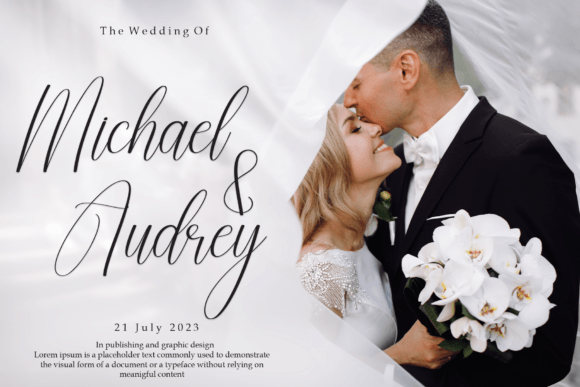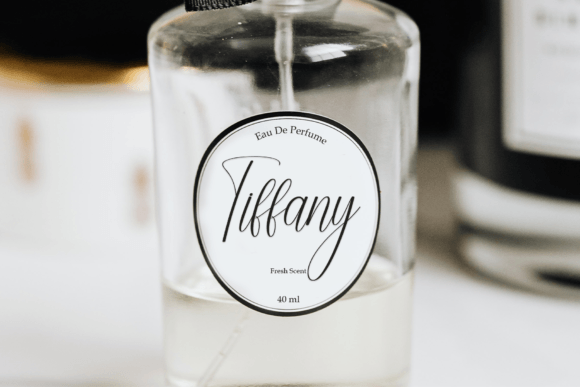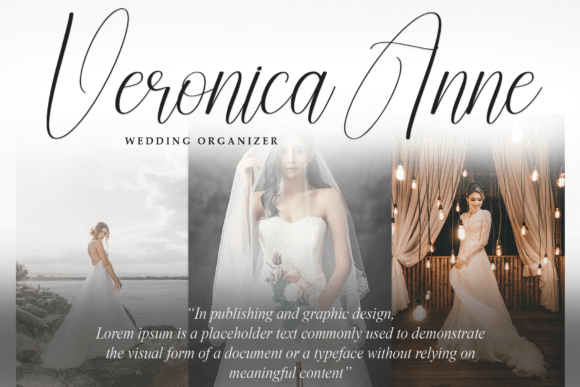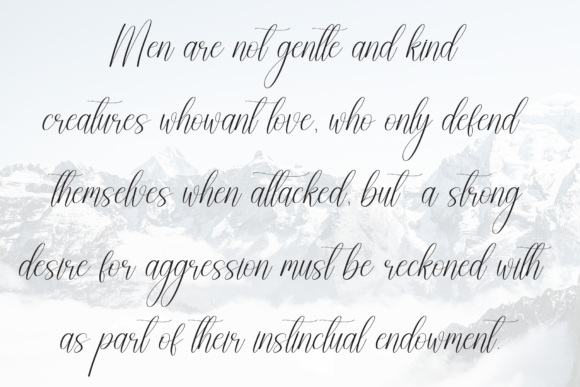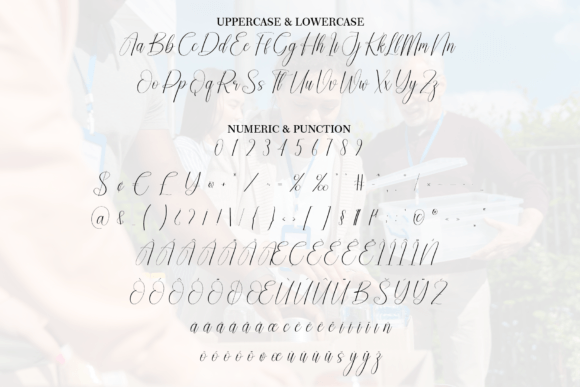
Introducing Charitable Font: A Typeface that Embodies Compassion and Generosity
In the world of typography, fonts play a crucial role in conveying emotions, tone, and purpose. For non-profit organizations, charity events, and social cause projects, a font that reflects the spirit of giving and making a positive impact is essential. This is where Charitable Font comes in – a versatile and compassionate typeface designed to inspire kindness, warmth, and approachability.
The Design Philosophy Behind Charitable Font
Charitable Font is crafted with soft curves and friendly letterforms that exude a sense of warmth and compassion. The design philosophy behind this font is to create a visual identity that resonates with the values of non-profit organizations and charity events. The rounded edges and gentle lines of Charitable Font make it perfect for projects that aim to promote social causes, raise awareness, and inspire action.
Key Features of Charitable Font
- Soft Curves and Friendly Letterforms: Charitable Font features soft curves and friendly letterforms that convey a sense of approachability and warmth.
- Versatile and Legible: This font is designed to be versatile and legible, making it perfect for a wide range of applications, from headings and titles to body text.
- Emotional Connection: Charitable Font is crafted to create an emotional connection with readers, inspiring feelings of compassion, empathy, and kindness.
Perfect for Non-Profit Organizations and Charity Events
Charitable Font is an ideal choice for non-profit organizations, charity events, and projects aimed at promoting social causes. This font helps to create a visual identity that is both compassionate and professional, conveying a sense of trust and credibility. Whether you’re designing a logo, brochure, or website, Charitable Font is the perfect choice to inspire kindness and generosity.
Why Choose Charitable Font?
With so many fonts available, why choose Charitable Font? Here are just a few reasons:
- Unique and Memorable: Charitable Font is a unique and memorable typeface that will help your project stand out from the crowd.
- Emotional Resonance: This font is designed to create an emotional connection with readers, inspiring feelings of compassion and kindness.
- Versatile and Adaptable: Charitable Font is versatile and adaptable, making it perfect for a wide range of applications and mediums.
Tips for Using Charitable Font
To get the most out of Charitable Font, here are a few tips:
- Use for Headings and Titles: Charitable Font is perfect for headings and titles, where you want to make a bold and compassionate statement.
- Pair with Other Fonts: Experiment with pairing Charitable Font with other fonts to create a unique and visually appealing typography.
- Adjust Font Size and Style: Adjust the font size and style to suit your project’s needs, from large headings to smaller body text.
Charitable Font is a powerful tool for designers and crafters who want to create a positive impact with their projects. With its soft curves, friendly letterforms, and versatile design, this font is perfect for non-profit organizations, charity events, and projects aimed at promoting social causes. By choosing Charitable Font, you’ll be inspiring kindness, compassion, and generosity – making a difference in the world, one project at a time.